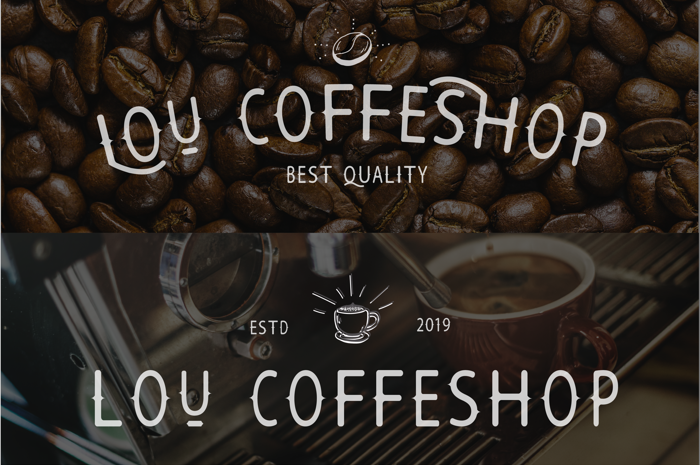
Sea And Oudra Rough Font
This is a Vintage type font, can be used for a variety of your retro design needs, suitable for logo, clothing or other design